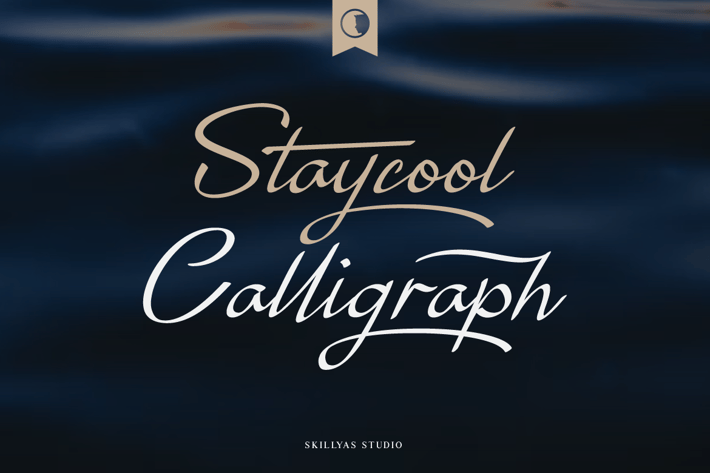
Staycool Calligraph Modern Script Font
Staycool Calligraph is an Elegant, Dainty Handwritten Font with Sweet and Delicate Swashes.
This original look will appeal to a wide range of crafty ideas, from letterheads and titles to stationery.
Character:
- Uppercase & Lowercase Letters
- Punctuation & Symbols Support
- PUA encoded Range Standard Alternative Style
- Ligature (Standard and Discretionary)